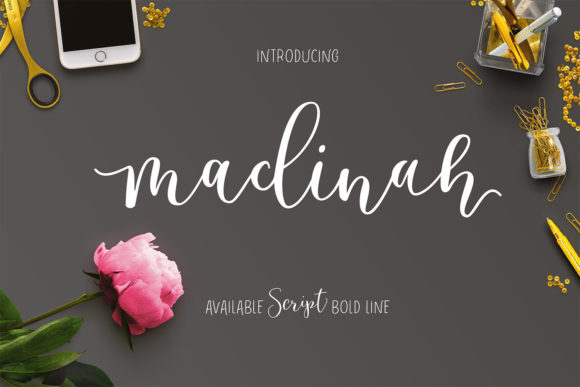
Are you yearning for an extraordinary font duo that perfectly captures the allure of calligraphy and hand-lettering? If so, Madinah Script Font is your ultimate solution, radiating elegance and sophistication in every stroke. This remarkable creation by genesislabstudio merges the classic beauty of calligraphy with the expressive freedom of hand-written art, giving you endless possibilities to transform your designs into captivating masterpieces.
Madinah Script Font boasts a stunning duo-style script, infused with the charm of flowing lines and delicate curves. Each letter dances across the page, carrying a hint of refined elegance that captures attention and leaves an indelible impression. Whether you're a designer, artist, or simply a creative enthusiast, Madinah Script Font is the perfect tool to add a touch of enchantment to your work.
Unleash your creativity with Madinah Script Font's boundless versatility. Its captivating beauty shines in wedding invitations, adding a touch of timeless romance to the most special day of your life. Create striking branding materials that exude professionalism and individuality, leaving a lasting impact on your clients. Elevate your blog titles and quotes with a touch of sophistication, drawing readers into your captivating words. From business cards to invitations, Madinah Script Font adds a touch of elegance and uniqueness that sets your designs apart from the ordinary.
With Madinah Script Font, the possibilities are endless. Let your imagination soar and embark on a creative journey where beauty and artistry unite. Experience the magic of Madinah Script Font today and witness the transformation of your designs into breathtaking works of art.